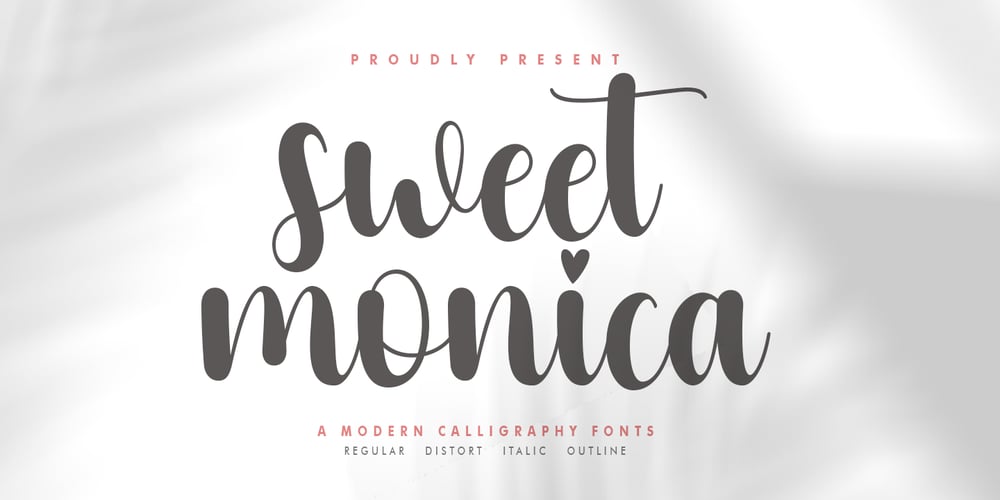
Sweet Monica
Sweet Monica font
Sweet Monica Font Family was designed by khaidir and published by Gatype. Sweet Monica contains 2 styles and family package options. Sweet Monica is an elegant script with a creative mood and perfect form, inspired by today’s beautiful calligraphy. thick, balanced and varied, born for luxury and beauty.In my example I show how this script can be used. It’s great for logotypes, branding, wedding invitations, romantic cards, alcohol labels, packaging, name spelling and more.Sweet Monica comes with beautiful uppercase and lowercase letters, numbers, and punctuation. In addition to the main character set, there are many alternative characters, early and late sweeps.